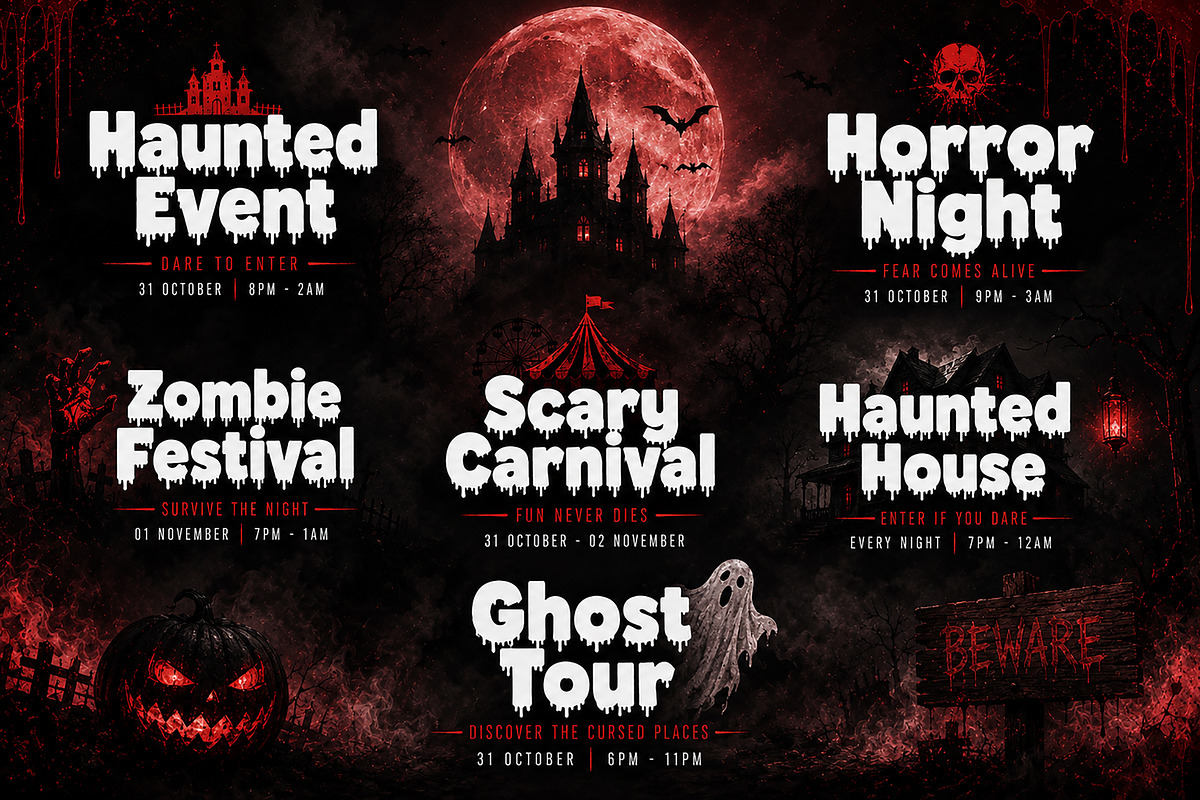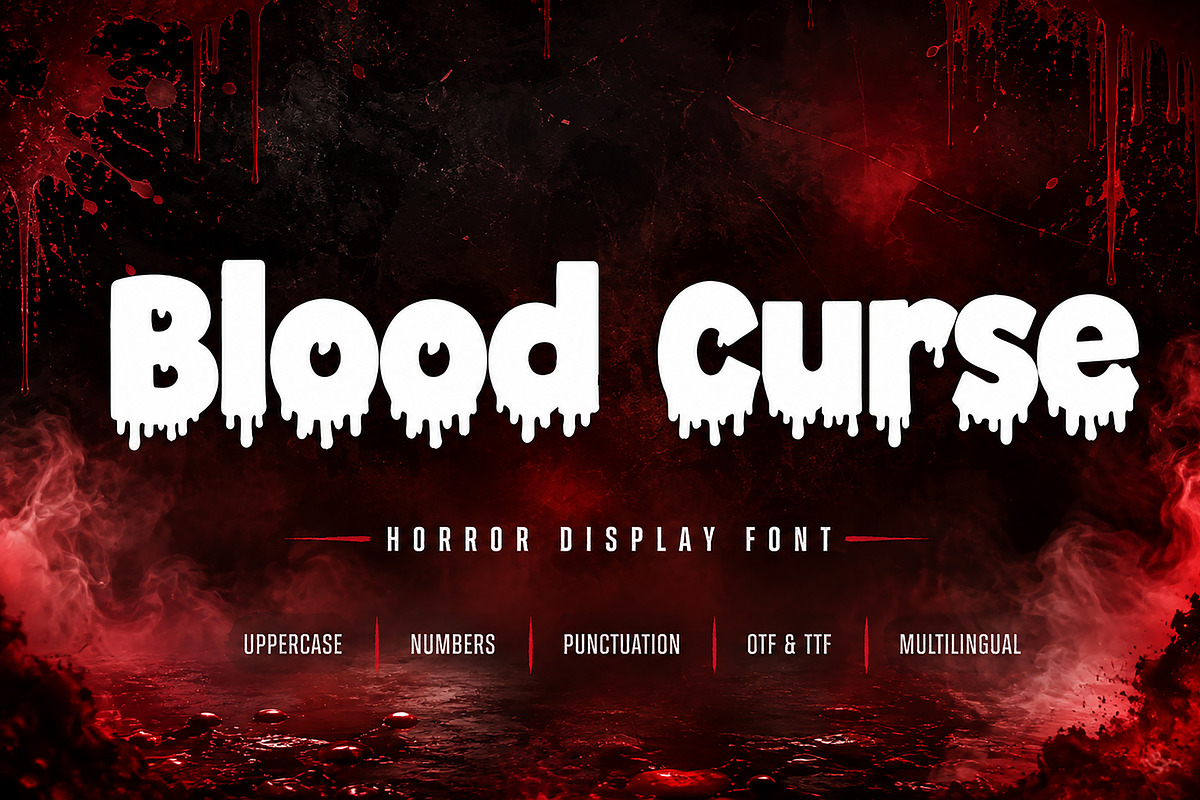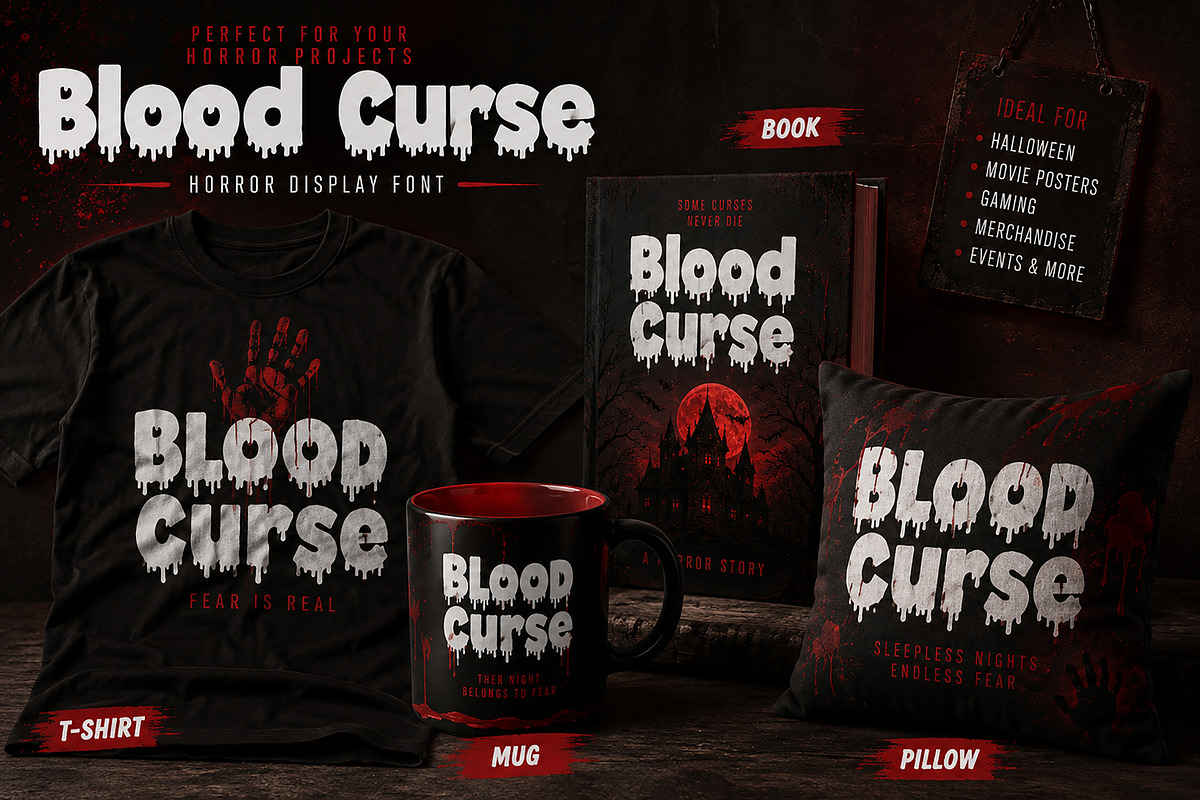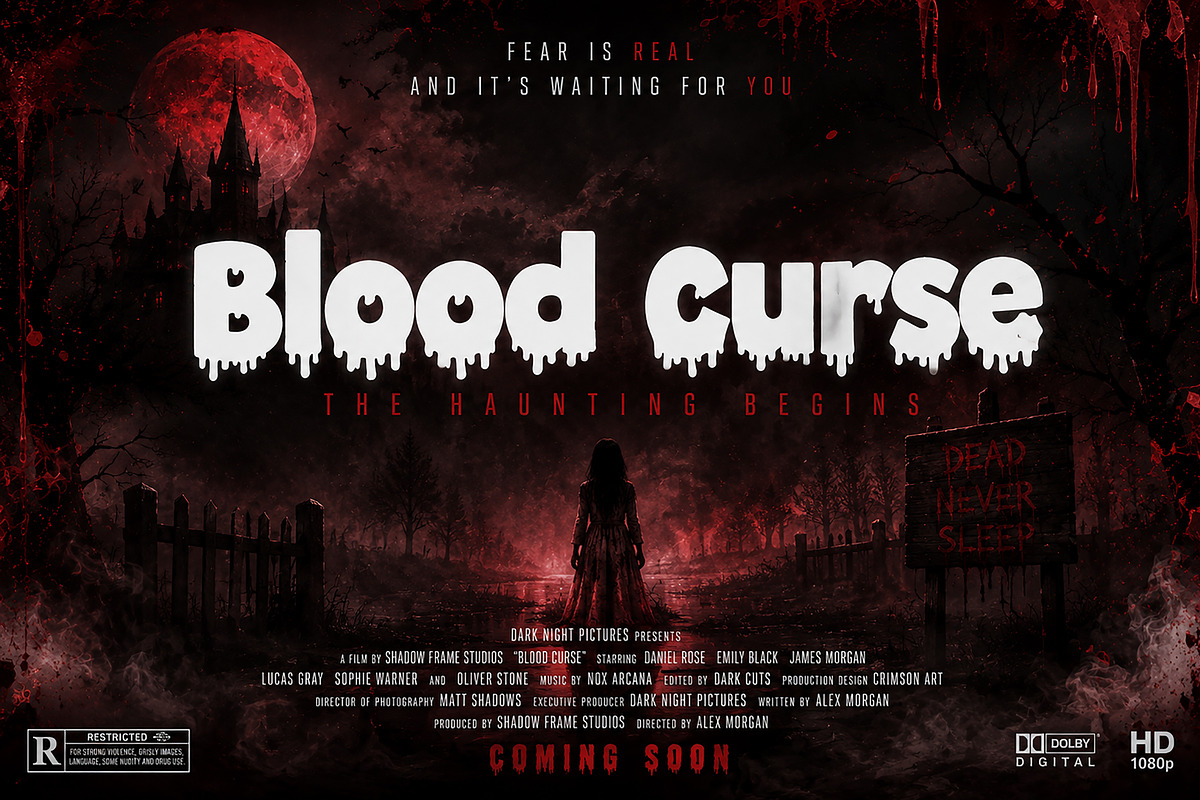
Blood Curse
Blood Curse – Horror Display Font
Blood Curse is a bold and terrifying horror display font inspired by dripping blood, haunted stories, horror movies, Halloween nights, and dark fantasy themes. With its thick letterforms and realistic melting effect, this typeface instantly creates a chilling atmosphere for any design.
Perfect for horror branding, Halloween party invitations, scary movie posters, game titles, YouTube thumbnails, book covers, apparel, merchandise, packaging, social media graphics, and spooky event promotions.
Whether you're creating a creepy Halloween project or a frightening horror logo, Blood Curse delivers a dramatic and unforgettable visual impact.
Bold Horror Display Typeface
Dripping Blood Letter Design
Uppercase Characters
Halloween Designs
Horror Movie Posters
Scary Book Covers
Horror Game Titles
Haunted House Branding
YouTube Thumbnails
T-Shirts & Merchandise
Posters & Flyers
Stickers
Event Promotions
Spooky Invitations
Dark Fantasy Projects